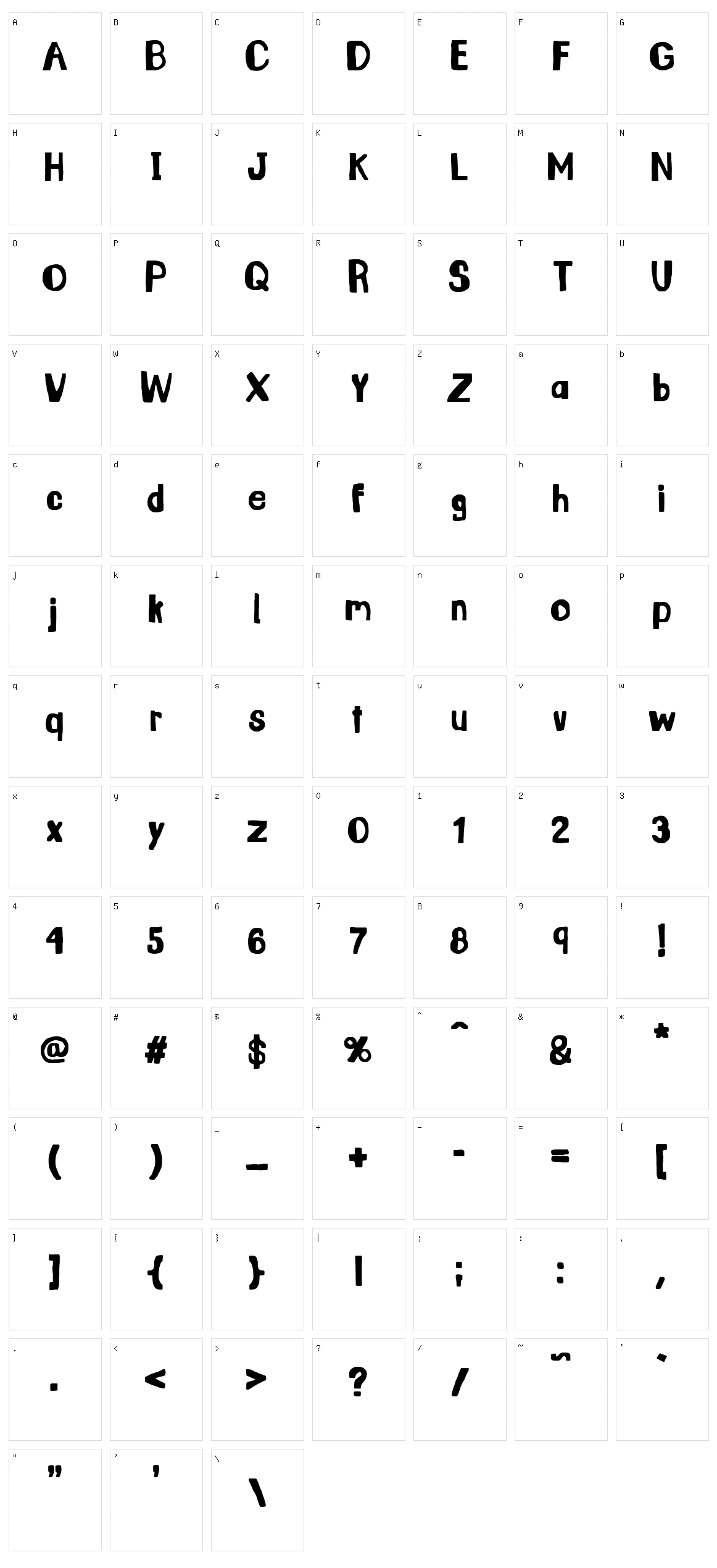
The free font Santa LucÃÂa is carefully designed by Woodcutter, showcasing a thoughtful balance of creativity and usability and falls under the Cartoon font style. When you download the ZIP file, it contains only 94.41 KB of font files, making it lightweight and quick to download. Please review the license details below to understand permitted usage and distribution rights. If license information is not available, we recommend using this font for personal projects only or contacting the author directly for commercial usage permissions.